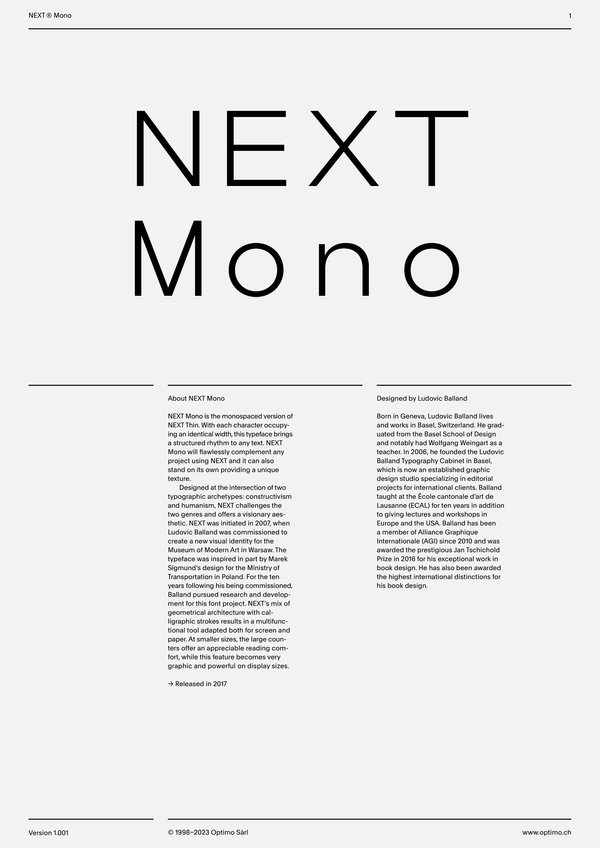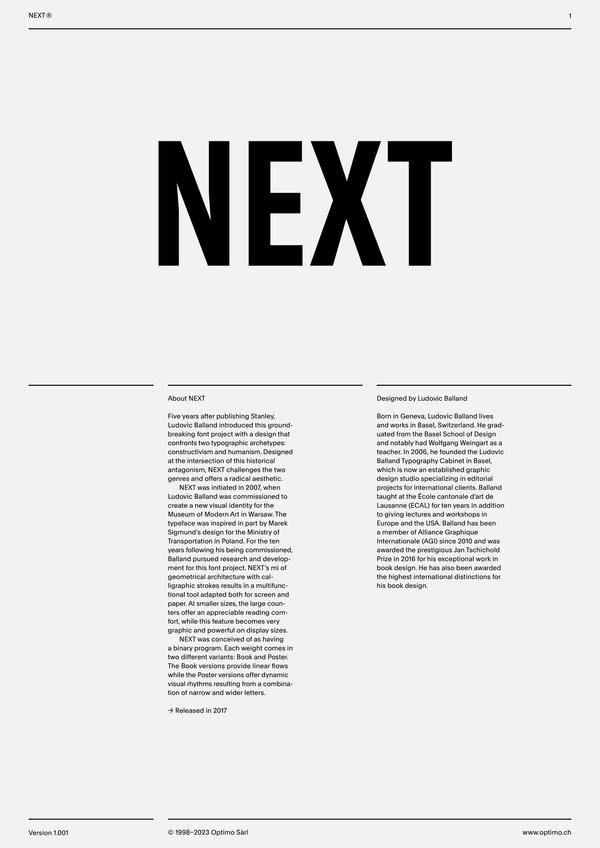
NEXT Mono
NEXT
Case Sensitive Forms
All Caps [cpsp]
Case Sensitive Forms [case]
This function formats the text in uppercase and adjusts spacing between all capital letters. It also applies the ‘Case Sensitive Forms’ feature which replaces certain characters with alternates that are better suited for all capital text, especially related to punctuation.
Contextual Alternates
Contextual Alternates [calt]
This feature adapts the position of a glyph after its surrounding context. For instance, a dash placed between two uppercase letters or numbers will be replaced by an uppercase version of the dash, slightly higher. This feature is usually active by default in Adobe applications.
Alternate a
Stylistic Set 1 [ss01]
This feature replaces glyph(s) with stylistic alternate(s).
Alternate uppercase diacritics
Stylistic Set 2 [ss02]
This feature replaces glyph(s) with stylistic alternate(s).
Tabular Lining Figures
Tabular Lining Figures [tnum–lnum]
Based on the proportions of the capitals, lining figures have an invariable height. With the combination of the tabular spacing format, the width of each numeral is uniformized. This feature is useful when numerals need to all lined up. It facilitates the reading of numbers set within columns or tables. As some applications don’t have access to this feature, proportional figures are set as the default choice.
Fractions
With this feature, any numbers separated by a slash will automatically turn into a fraction. To fit in fraction configuration, numerals have been designed smaller and their weights have been adjusted to suit the typeface.
Lowercase math symbols
Stylistic Set 6 [ss06]
This feature activates alternate lowercase positioning of mathematical symbols.
This feature replaces any letter following a numeral with its matching superior letters. French language uses the ordinal indicators such as ‘er’ for 1er premier, while Spanish, Portuguese and Italian require the feminine and masculine ordinals ‘a,’ ‘o’ for 1º, 1ª. Ordinals are designed to match the weight of the typeface.
Slashed Zero
Slashed Zero [zero]
Originally created to avoid the confusion between the ‘0’ and the ‘O’, this feature substitutes all zeros in a selected text by a slashed form of the zero.
Multiply sign
Stylistic Set 20 [ss20]
This feature substitutes the letter “x” into the multiplication sign.
Numerators [numr]
This feature substitutes glyphs with their matching smaller alternates. The numerators are the same glyphs that are used to create fractions, their vertical position remains within the capital letters height. These glyphs are reduced in size and designed slightly heavier to keep them consistent with the rest of the font.
This feature substitutes glyphs with their matching smaller alternates and low position glyphs. The denominators are the same glyphs that are used to create fractions, their vertical position remains within the base line. These glyphs are reduced in size and designed slightly heavier to keep them consistent with the rest of the font.
Superscript/Superiors
This feature substitutes glyphs with their matching smaller alternates which are set slightly above the height of the capital letters. These glyphs are reduced in size and designed slightly heavier to keep them consistent with the rest of the font.
Subscript/Inferiors
Subscript / Inferiors [subs]
This feature substitutes glyphs with their matching smaller alternates which are set slightly below the baseline. These glyphs are reduced in size and designed slightly heavier to keep them consistent with the rest of the font.
NEXT was conceived of as having a binary program. Each weight comes in two different variants: Book and Poster. The Book versions provide linear flows while the Poster versions offer dynamic visual rhythms resulting from a combination of narrow and wider letters.